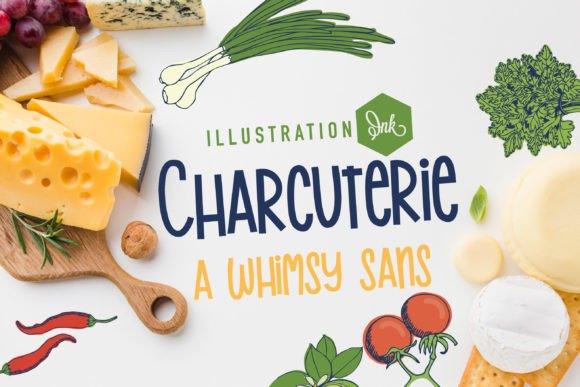
Welcome to the realm of creativity, where words dance in perfect harmony with captivating fonts. Enter the realm of Charcuterie, a sans serif typeface that holds the power to transform your creative visions into tangible masterpieces.
In a world brimming with fonts, Charcuterie stands out as a breath of fresh air. Its youthful, cute charm is an irresistible attraction, making it the perfect choice for adding an exuberant touch to your texts. Dive into the world of bouncy baselines, rounded shapes, and a delightful blend of thin and thick strokes that make Charcuterie truly unique.
Imagine your invitations, cards, and creative projects adorned with the charm of Charcuterie. Its playful personality shines through, capturing the essence of joy and innocence. Transform your words into captivating statements that speak volumes, leaving an unforgettable impression on your audience.
With Charcuterie as your font of choice, you unlock a world of endless possibilities. Whether you're creating designs for personal celebrations, social media posts, or professional ventures, Charcuterie becomes your trusted companion. It's the perfect choice for adding a touch of whimsy to your presentations, creating eye-catching headlines that demand attention, or simply expressing your creativity in a unique and personal way.
Join the growing community of Charcuterie enthusiasts who have discovered the magic of this extraordinary font. Let your imagination soar as you explore its endless applications, discovering new ways to captivate and enthrall your audience.
Make Charcuterie your font of choice today, and embark on a creative journey like no other. Unleash the boundless potential of your imagination and watch as your words transform into works of art, leaving a lasting impression on everyone who encounters them.